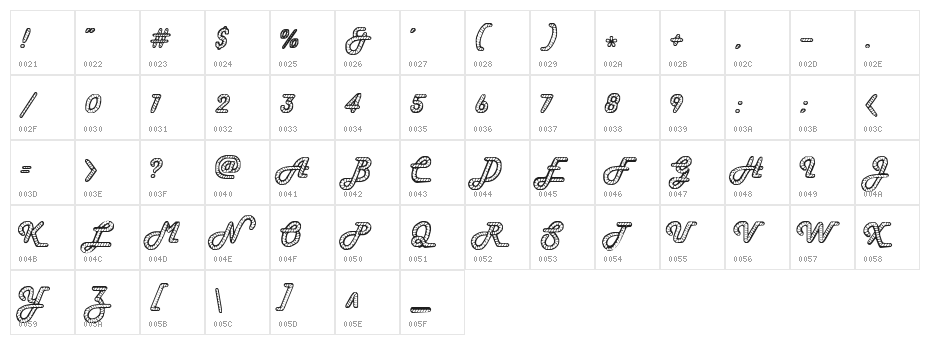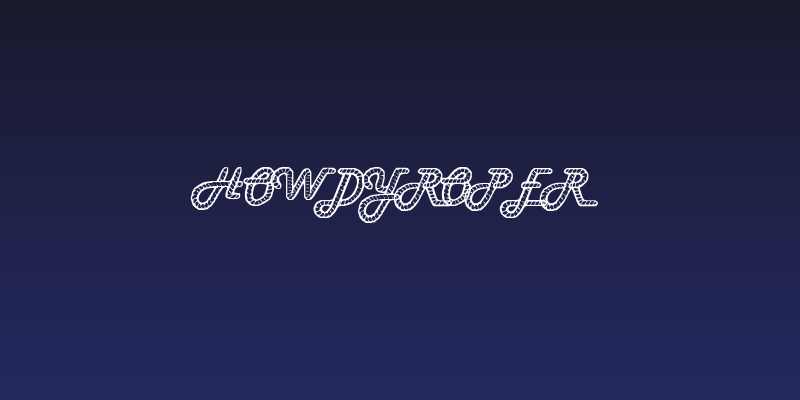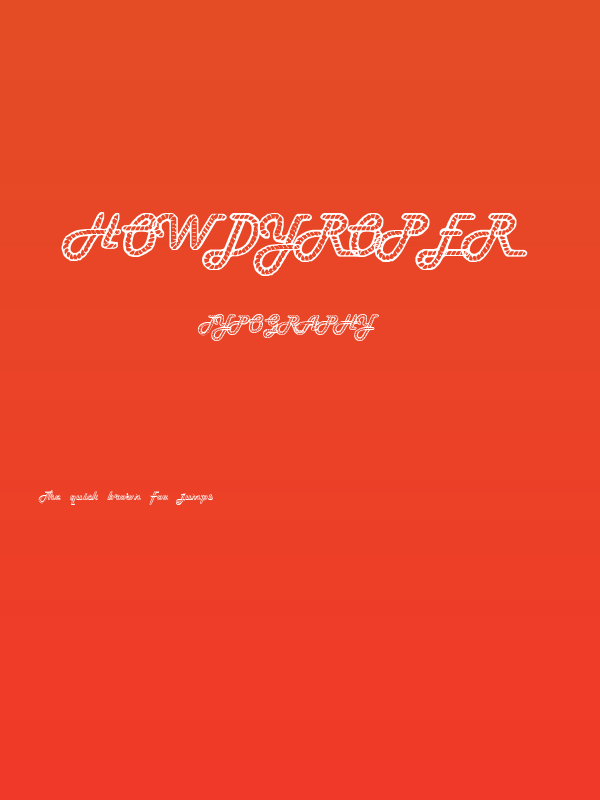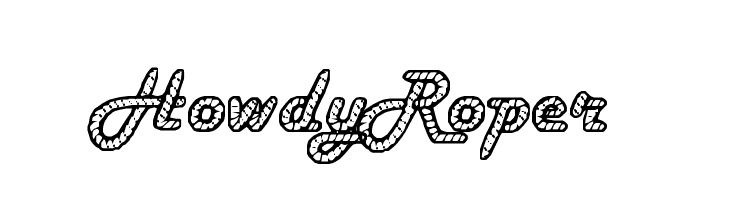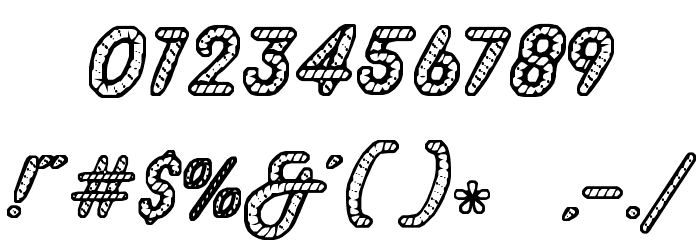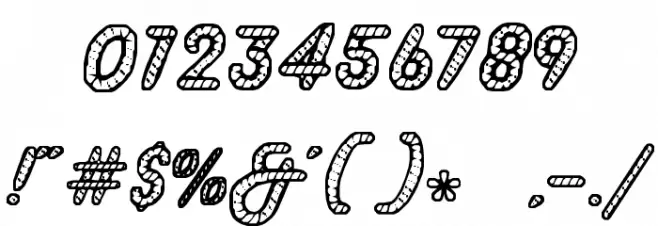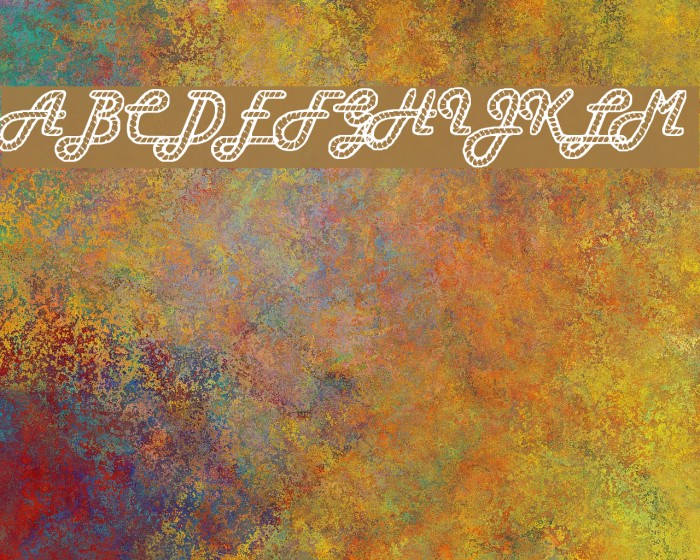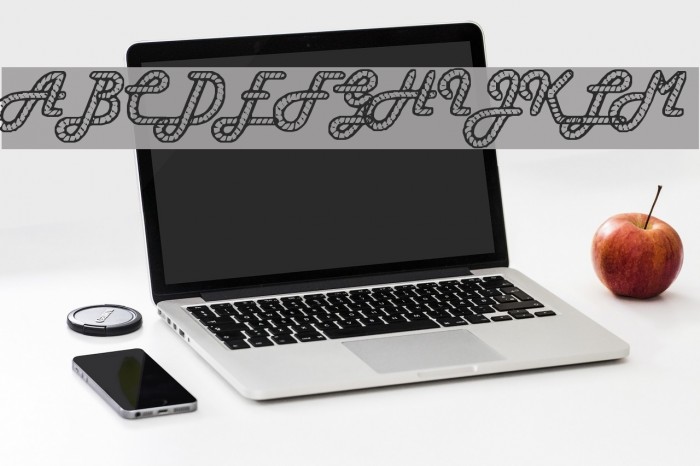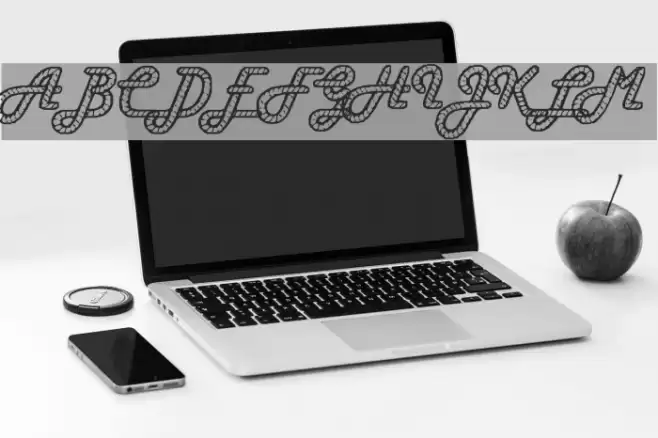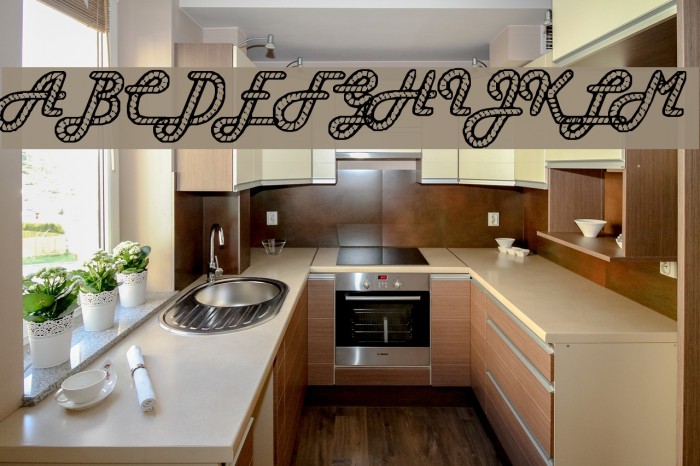
HowdyRoper Font
HowdyRoper Description
This font features a unique, decorative style that resembles a rope pattern, giving it a playful and rustic appearance. The letters are interconnected with a consistent looped design, creating a sense of movement and continuity. Each character is outlined with a bold stroke, enhancing its visibility and adding to the overall aesthetic. The uppercase and lowercase letters maintain this cohesive style, while the numerals and special characters are designed to match the whimsical theme. This font is ideal for projects that require a touch of creativity and a nod to western or country themes.